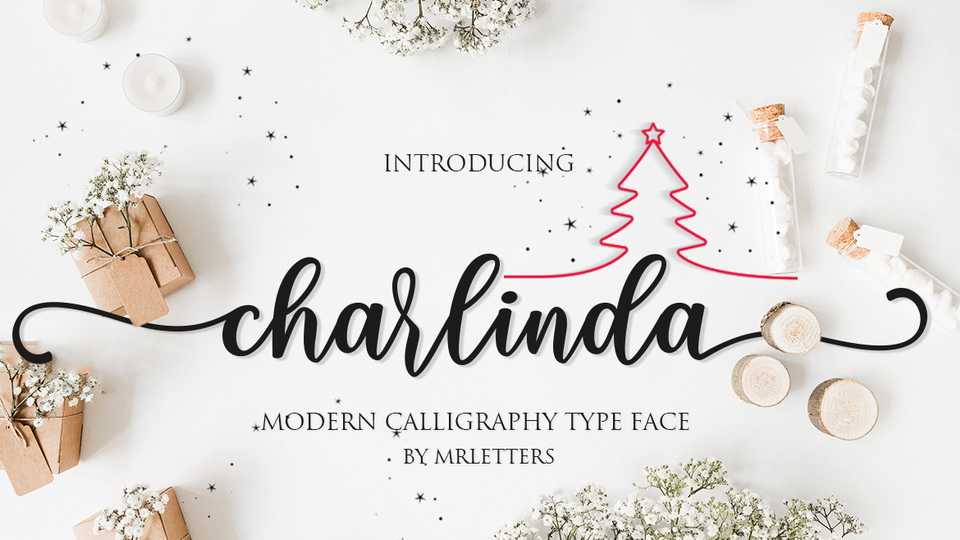
Download Charlinda Script, a charming modern calligraphy font. Charlinda font perfect for branding, wedding invitations, magazines, mugs, business cards, quotes, posters, and many more.
Designer: MrLetters